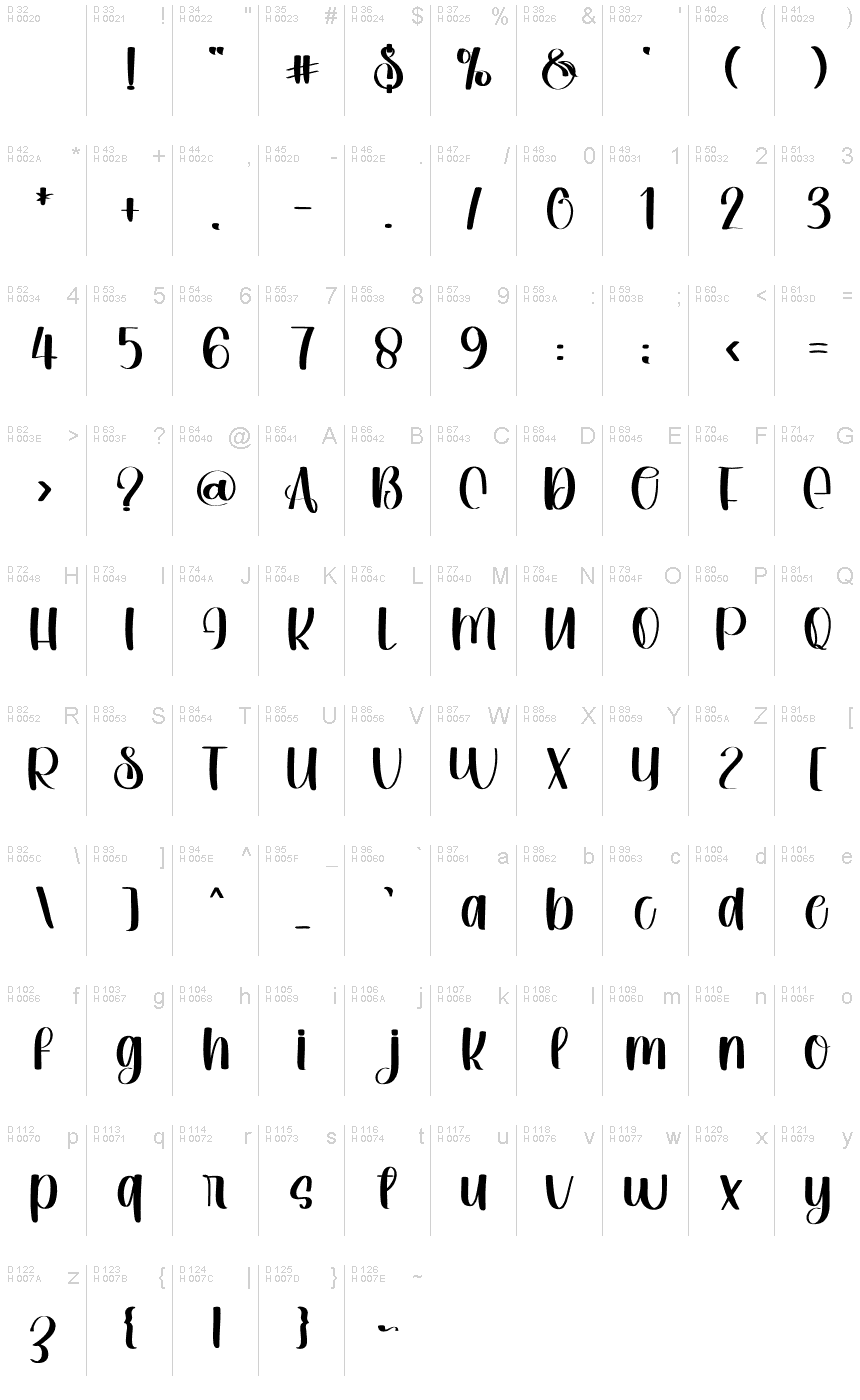
Ringger
Ringger, the creation of Inermedia Studio, is a captivating font that effortlessly combines smoothness with a brush-like texture. Its semi-bold weight adds an air of confidence and uniqueness to any project it graces.
With its artistic flair and modern appeal, Ringger is perfect for designing eye-catching logos that demand attention. Additionally, this font style lends itself beautifully to creating stunning wedding invitations, fashion magazines, or elegant product packaging.
Whether you're seeking a touch of sophistication or aiming for a bold statement, Ringger is the ideal choice for your creative endeavors.